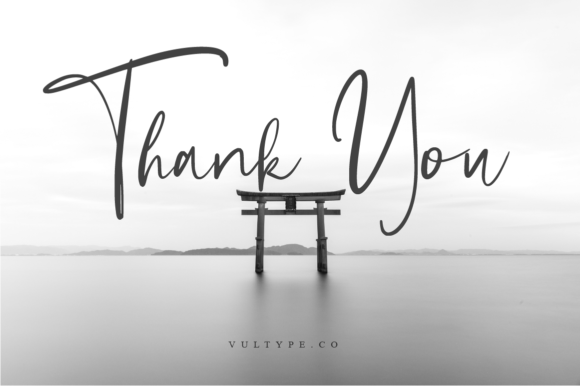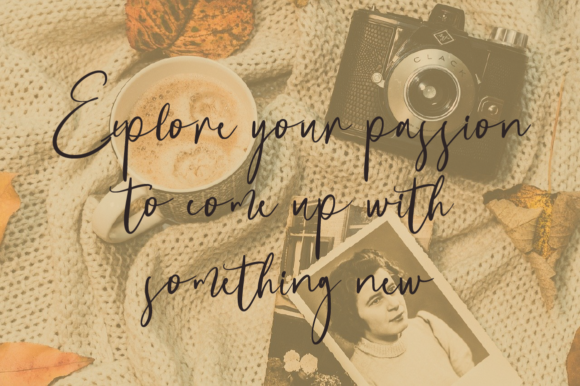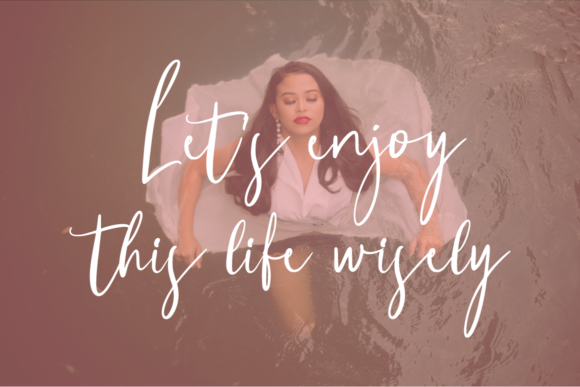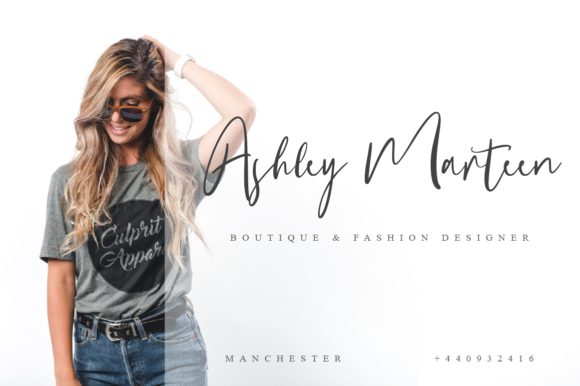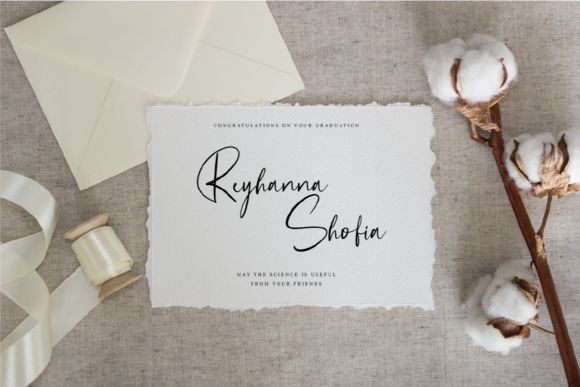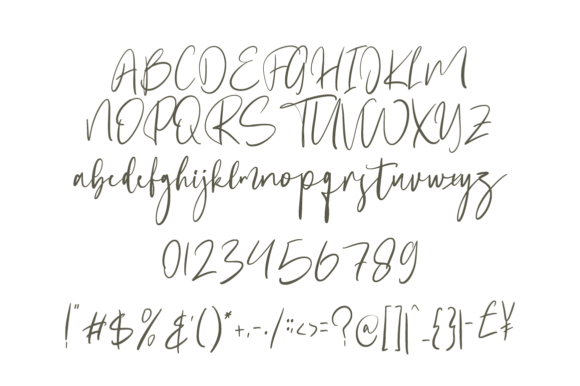
Bentley Font: Elevate Your Designs with a Modern Script Font
In the world of typography, fonts play a crucial role in conveying the tone and personality of a design. For designers and crafters looking to add a touch of elegance and sophistication to their work, the Bentley font is an excellent choice. This modern script font is bold, beautiful, and versatile, making it perfect for a wide range of applications.
What is Bentley Font?
Bentley is a modern script font that exudes luxury and refinement. Its bold and beautiful strokes are designed to make a statement, adding a touch of glamour to any design. The font’s elegant curves and flowing lines create a sense of movement and fluidity, making it perfect for designs that require a handwritten touch.
Characteristics of Bentley Font
The Bentley font boasts several characteristics that make it an excellent choice for designers and crafters. Some of its notable features include:
- Bold and Beautiful: The Bentley font is designed to make a statement. Its bold strokes and beautiful curves add a touch of elegance to any design.
- Modern Script: The font’s modern script style gives it a fresh and contemporary look, making it perfect for designs that require a modern touch.
- Handwritten Touch: The Bentley font’s flowing lines and elegant curves create a sense of movement and fluidity, giving it a handwritten feel.
- Versatile: The font is versatile and can be used for a wide range of applications, from wedding invitations to business cards.
Uses of Bentley Font
The Bentley font is perfect for a variety of design applications, including:
- Wedding Invitations: The font’s elegant and sophisticated style makes it perfect for wedding invitations, adding a touch of luxury and refinement to your designs.
- Thank You Cards: The Bentley font is also great for thank you cards, allowing you to express your gratitude in style.
- Quotes: The font’s bold and beautiful strokes make it perfect for quotes, adding a touch of elegance to your designs.
- Greeting Cards: The Bentley font is also suitable for greeting cards, allowing you to create beautiful and personalized designs.
- Logos: The font’s modern script style makes it perfect for logos, giving your brand a fresh and contemporary look.
- Business Cards: The Bentley font is also great for business cards, allowing you to create professional and elegant designs.
Why Choose Bentley Font?
There are several reasons why designers and crafters choose the Bentley font for their designs. Some of the benefits of using this font include:
- Elegance: The Bentley font adds a touch of elegance and sophistication to any design, making it perfect for designs that require a luxurious feel.
- Versatility: The font’s versatility makes it suitable for a wide range of applications, from wedding invitations to business cards.
- Easy to Read: The Bentley font is easy to read, making it perfect for designs that require a clear and concise message.
- Unique: The font’s modern script style gives it a unique and distinctive look, making it perfect for designers who want to stand out from the crowd.
In conclusion, the Bentley font is a modern script font that is bold, beautiful, and versatile. Its elegant curves and flowing lines create a sense of movement and fluidity, making it perfect for designs that require a handwritten touch. With its wide range of applications and benefits, the Bentley font is an excellent choice for designers and crafters looking to elevate their designs.